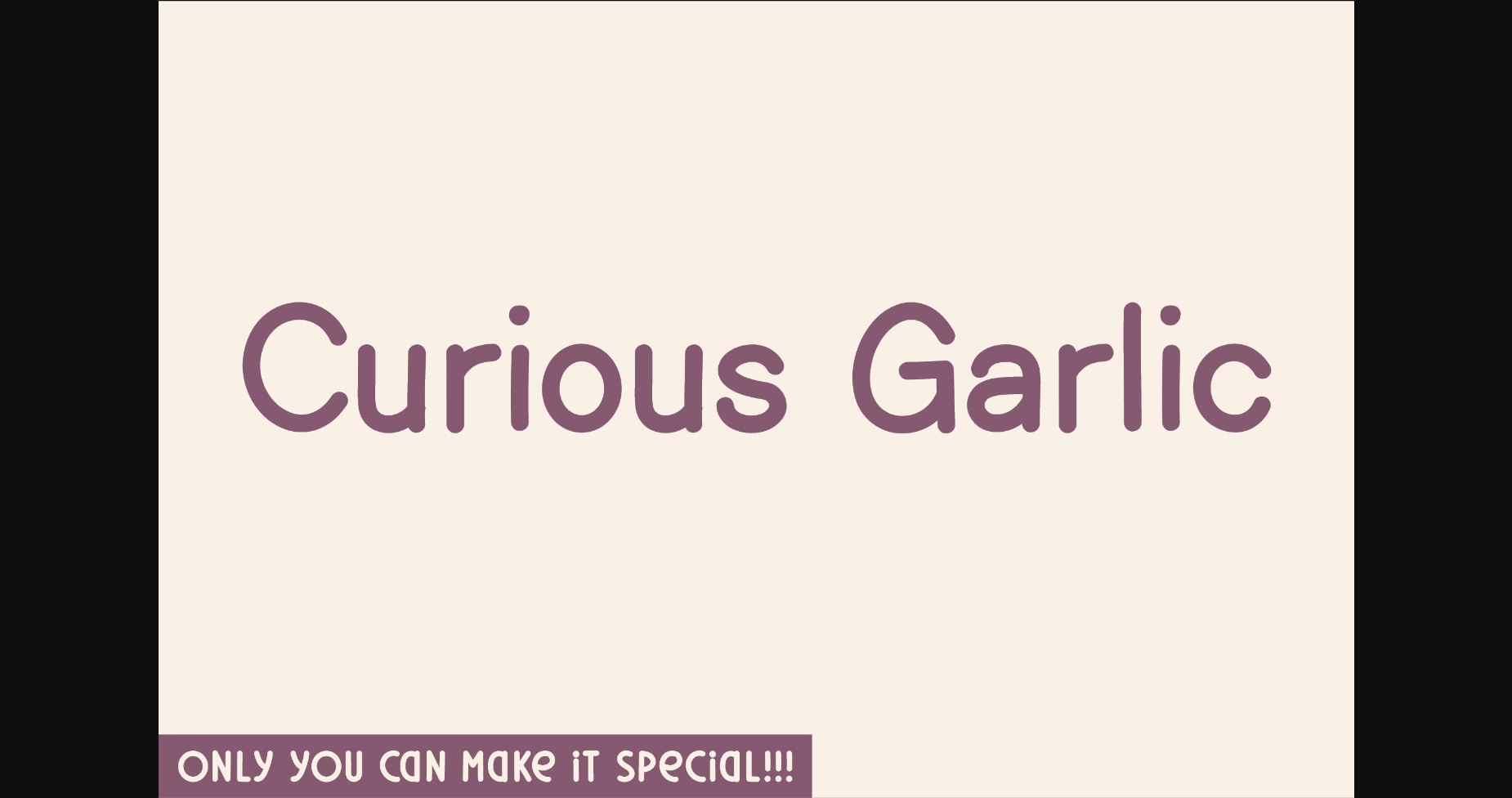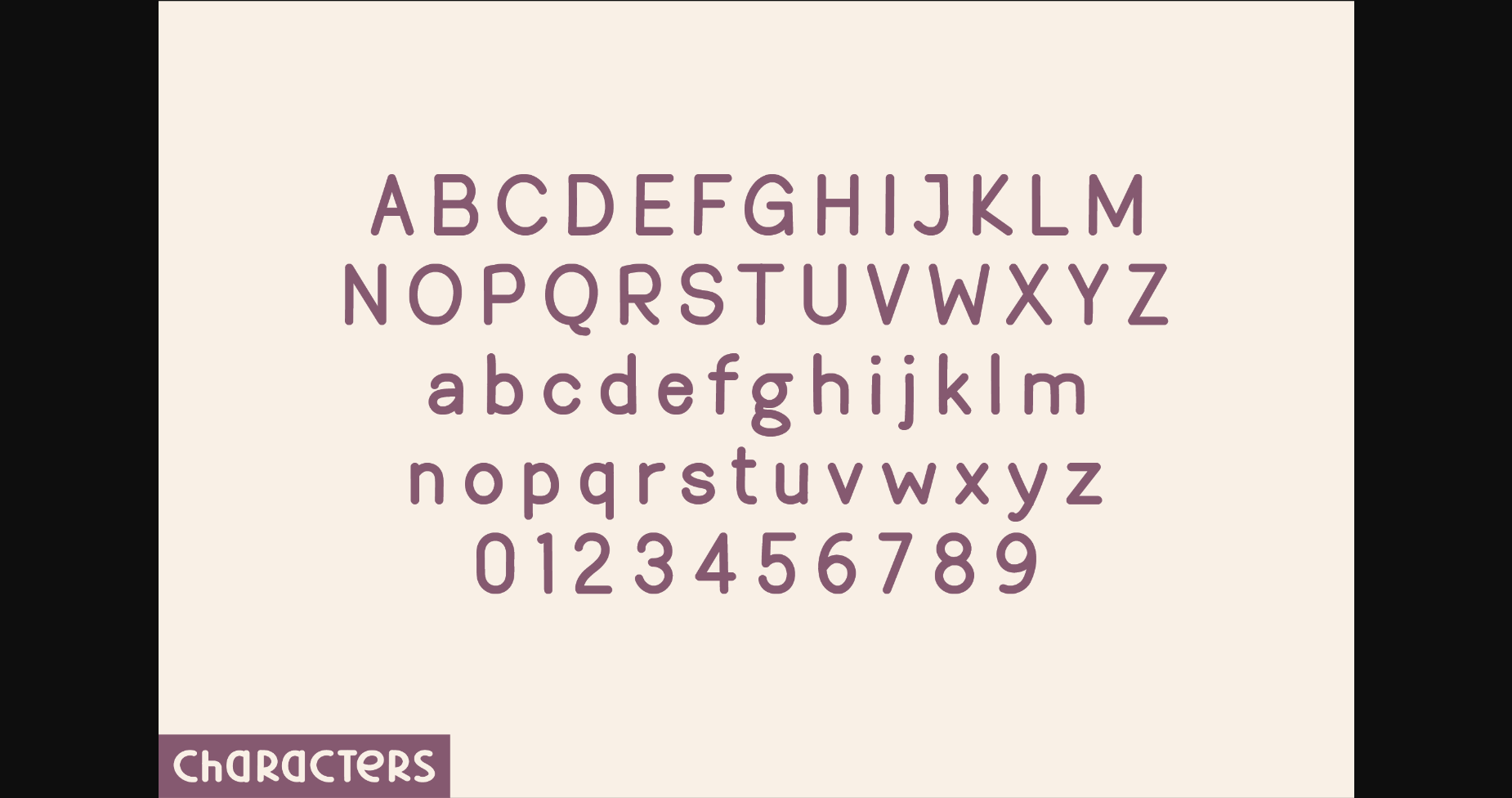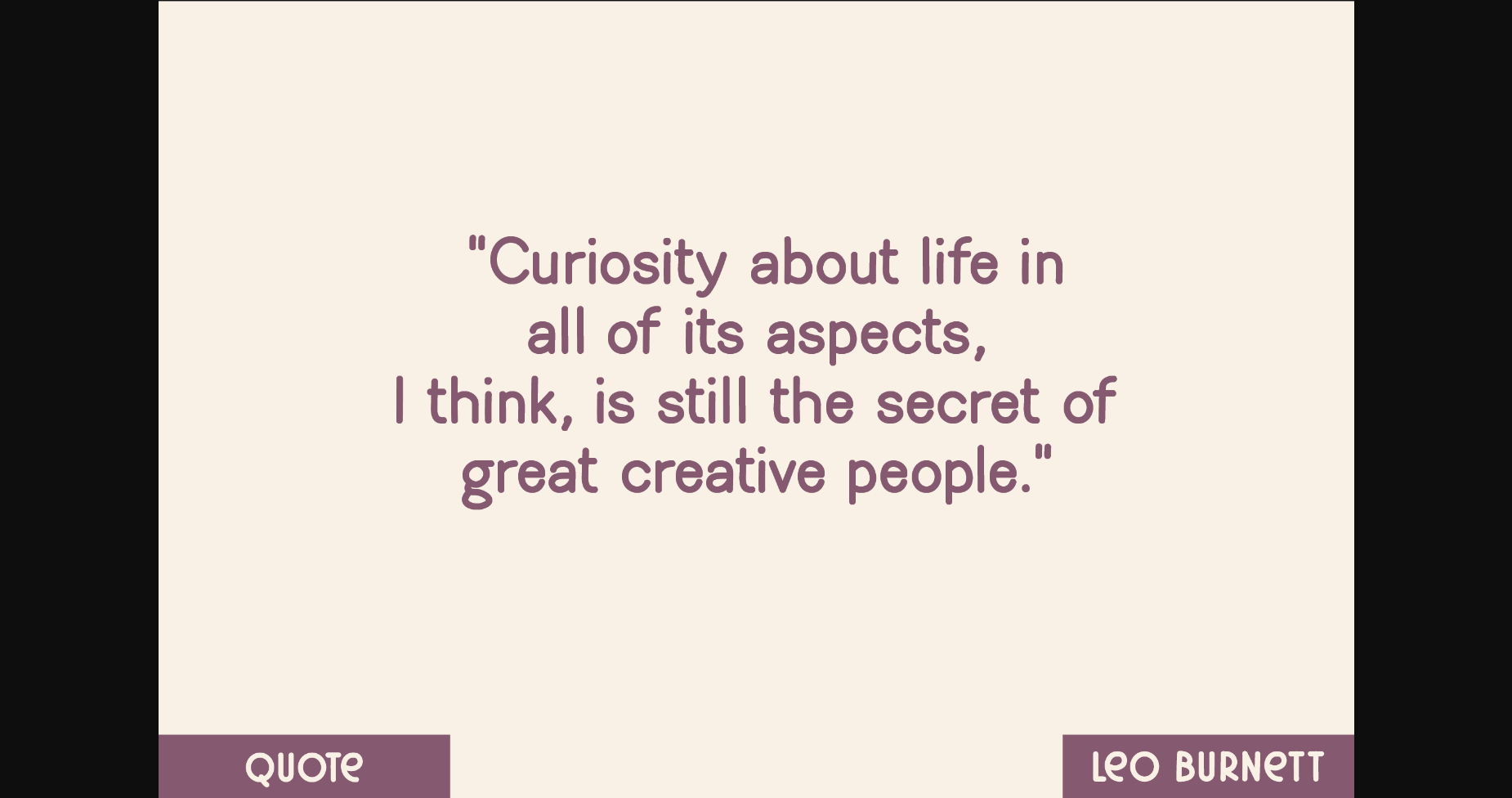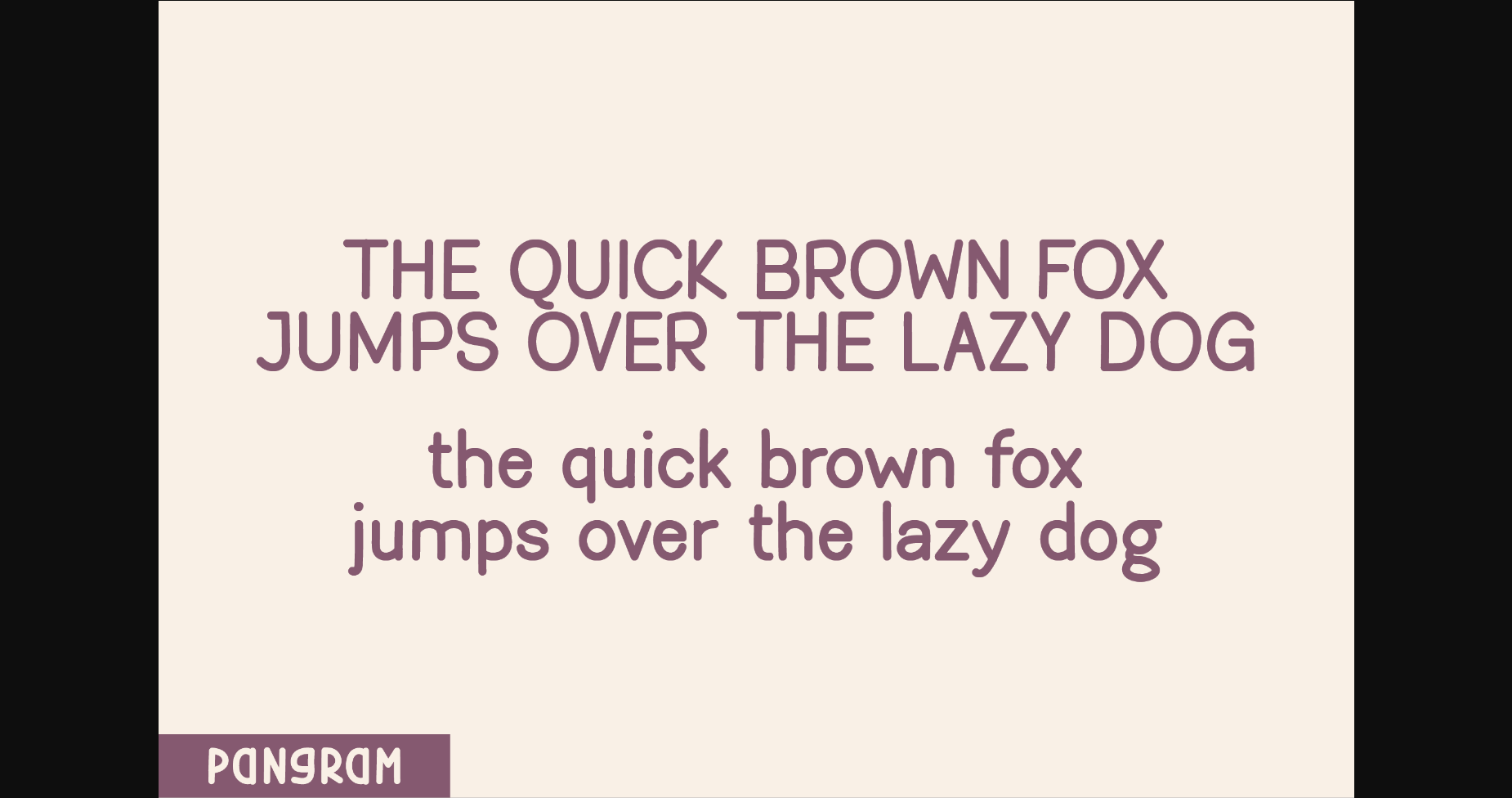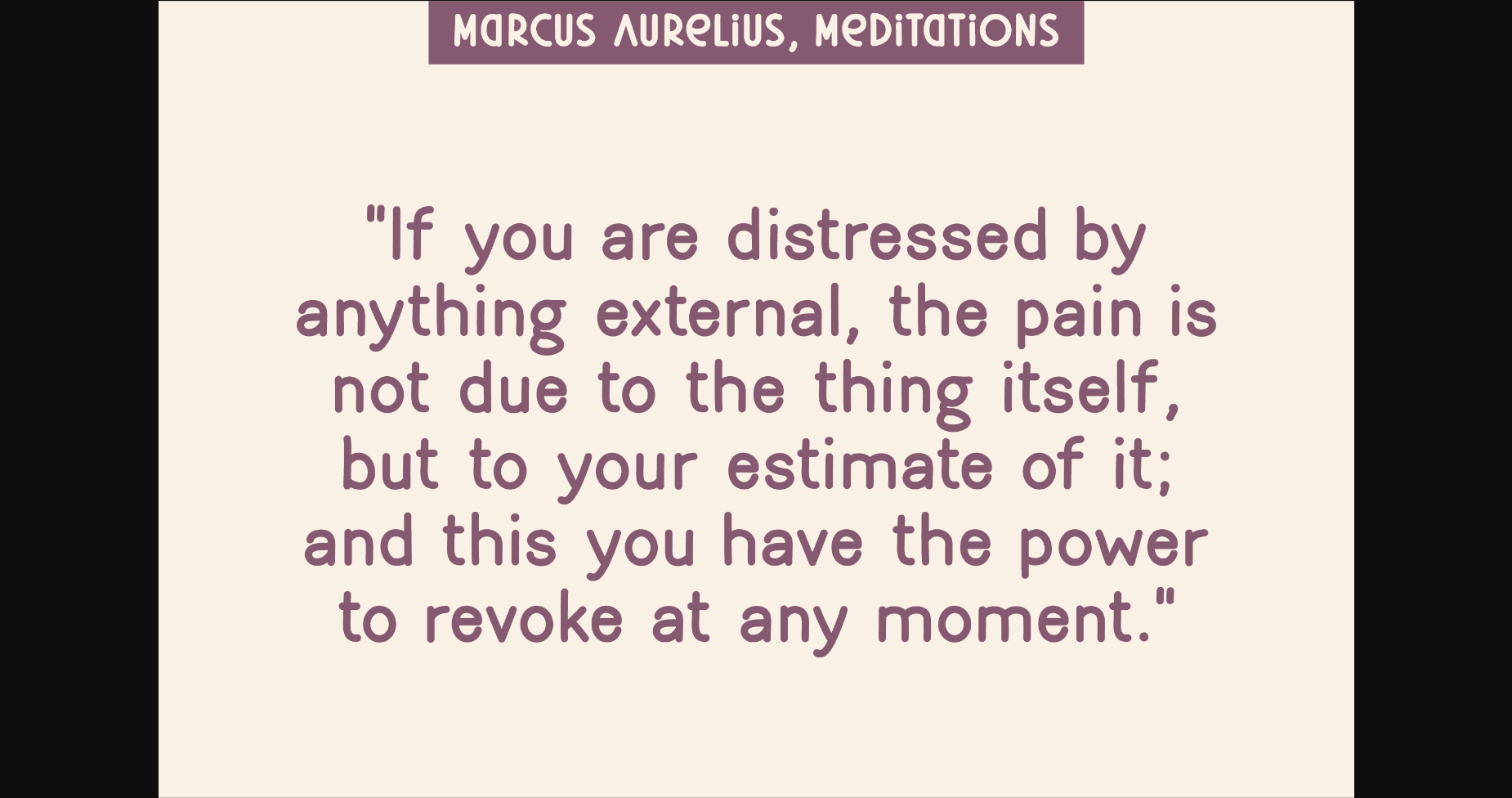
About Curious Garlic Font
Curious Garlic is an elegant and bold serif font. Fall in love with its incredibly versatile style and use it to create gorgeous wedding invitations, beautiful stationary art, eye-catching social media posts, and much more!